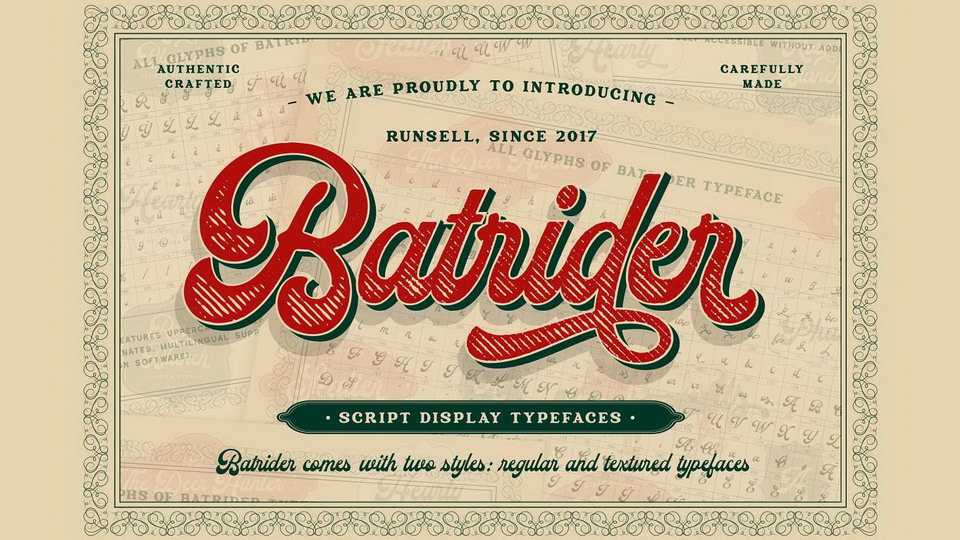
Download Batrider font, a script typeface in Regular and Textured styles, inspired by vintage lettering in old label. The Batrider matches applies in some designs such as the logotype, brand, packaging, branding, quotes, business cards and more custom design.
Designer: Runsell Studio